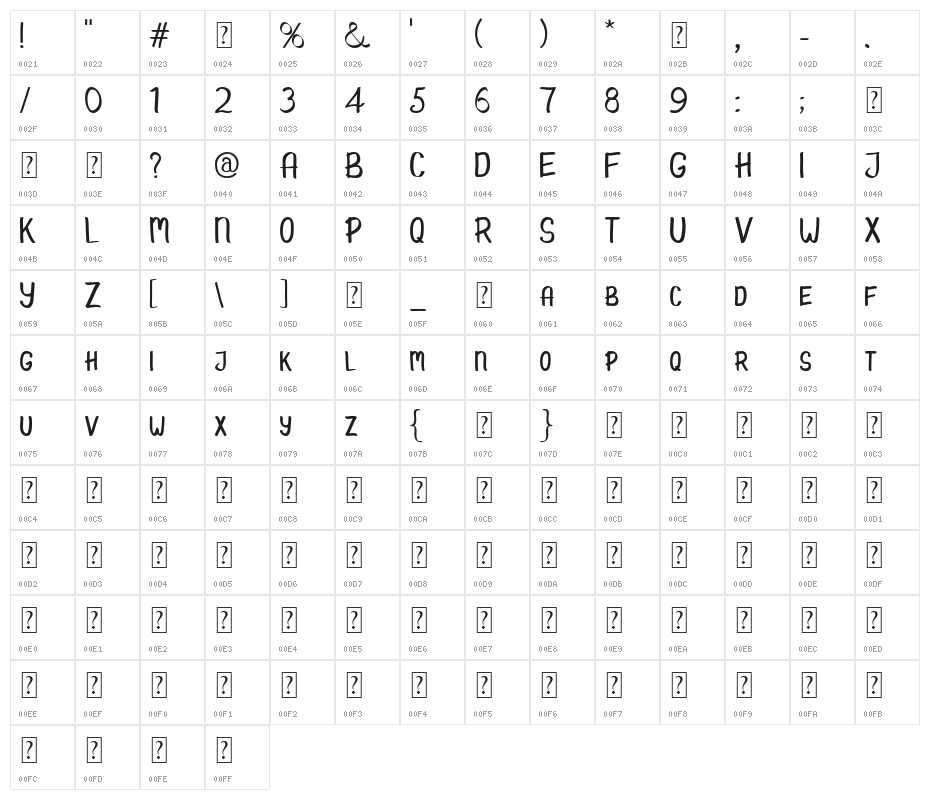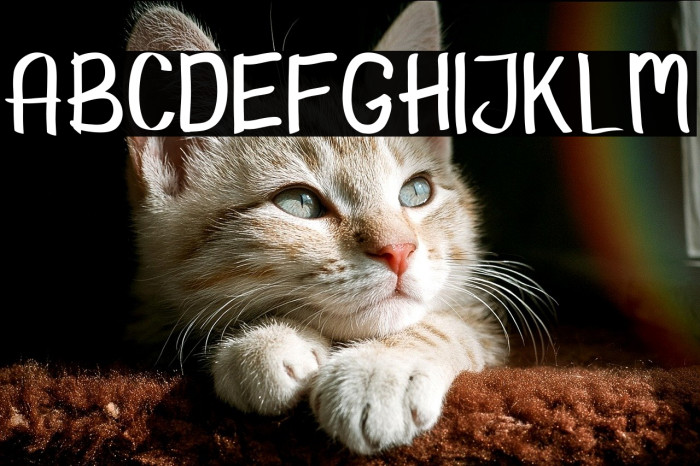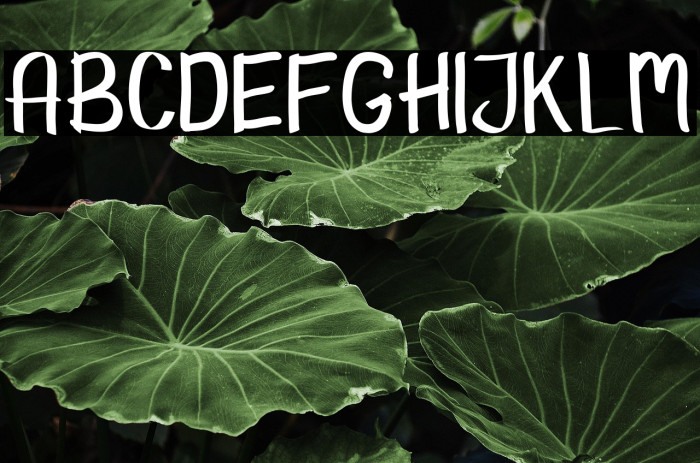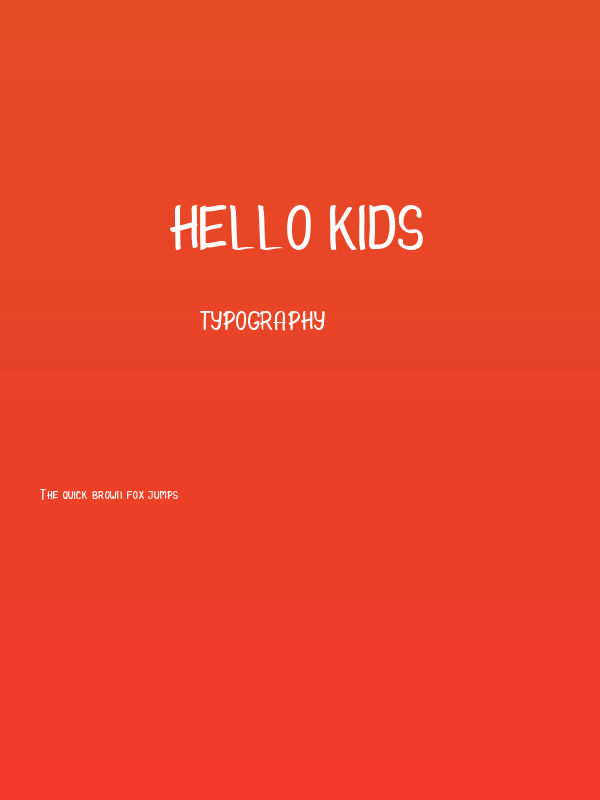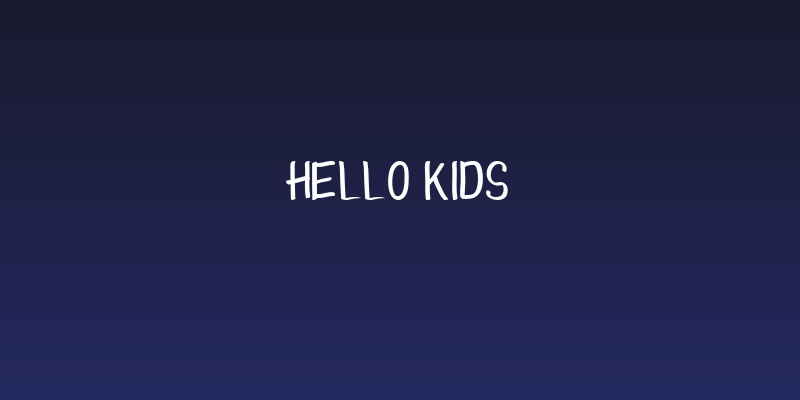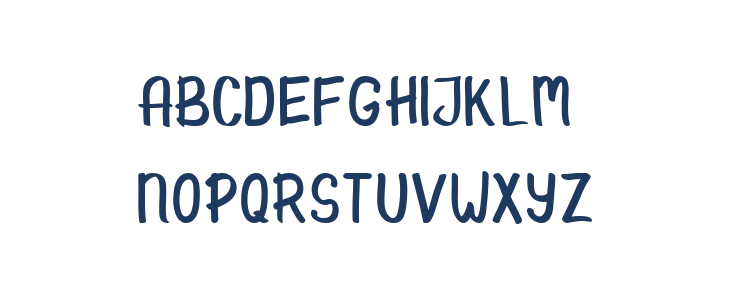
Hello Kids Font
Hello Kids Description
This playful and whimsical font exudes a youthful and energetic vibe, making it perfect for projects aimed at children or those seeking a fun and informal tone. The characters are bold and slightly irregular, giving them a hand-drawn appearance that adds to the font's charm. The uppercase and lowercase letters are well-balanced, with a consistent stroke width that maintains readability while adding a touch of creativity. The numbers and special characters are designed to match the playful style, ensuring a cohesive look across all text elements.
| Proposed Projects | Ideal for children's books, educational materials, playful branding, and creative posters. |